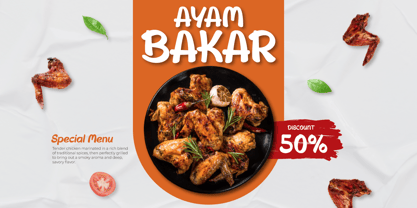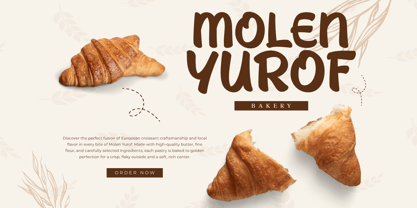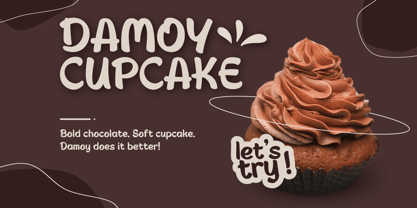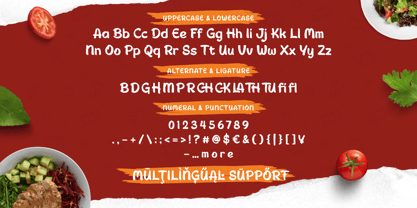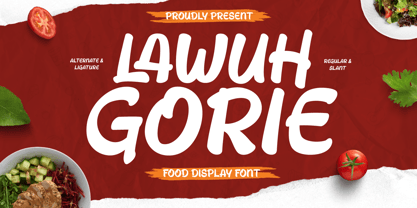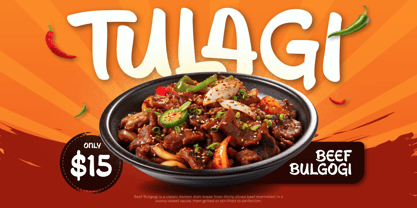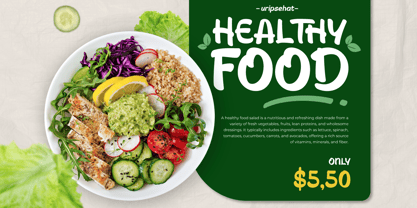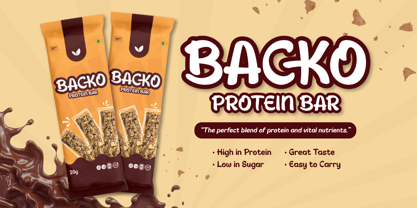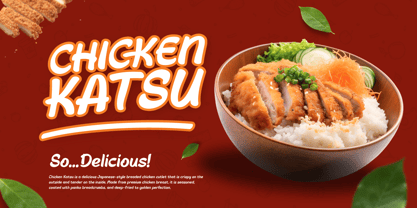
Lawuh Gorie is a bold and appetizing food display font crafted to bring warmth and delicious appeal to your food-related projects. Featuring two lively styles—Regular and Slant—this font delivers both versatility and personality, making it ideal for food branding, restaurant logos, product packaging, menu designs, and promotional materials.
Each letter in Lawuh Gorie is designed with soft curves and a slightly rounded form, evoking the richness and flavor of traditional meals. The Slant version adds dynamic movement, perfect for conveying enthusiasm and inviting energy. Whether you’re designing for street food, homemade snacks, or gourmet products, Lawuh Gorie adds a flavorful character to your visual message.
Spice up your designs with the unique taste of Lawuh Gorie—where typography meets culinary creativity.